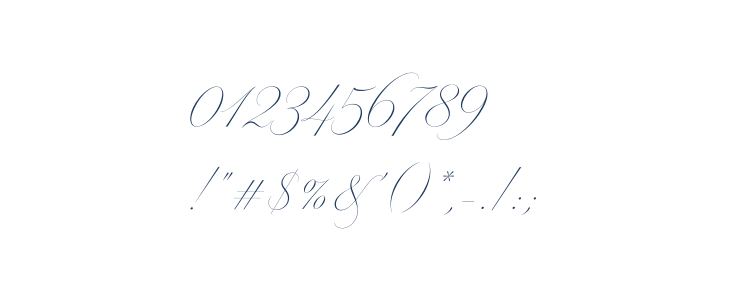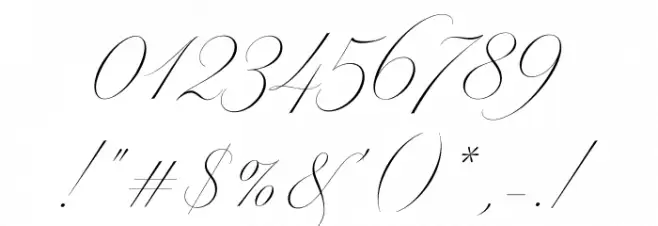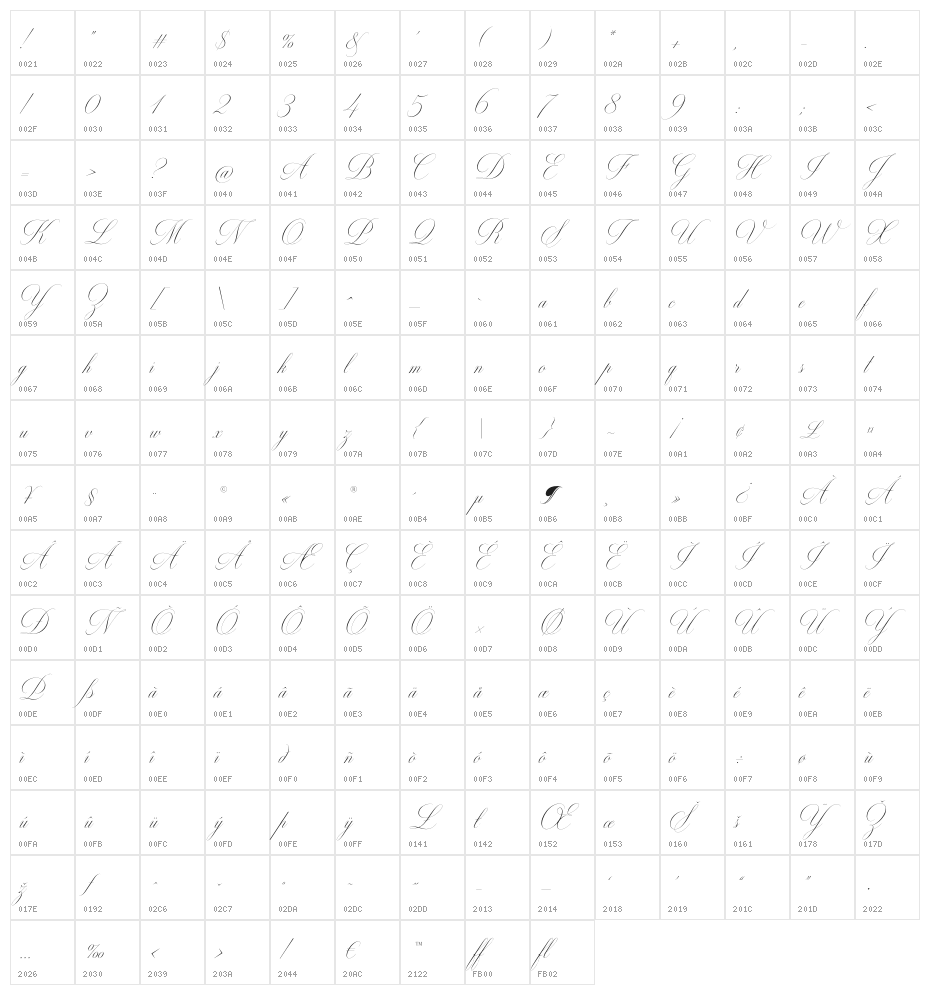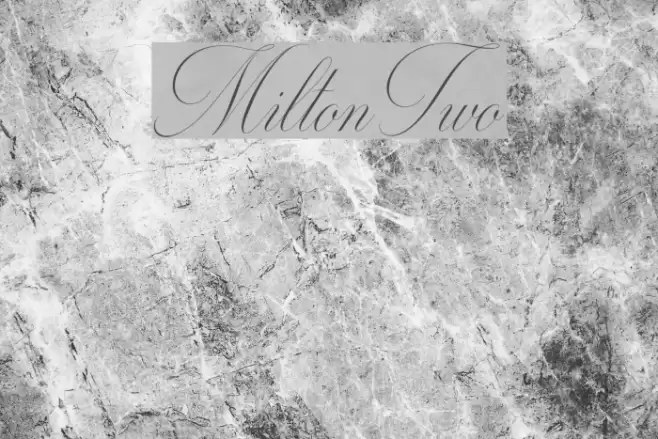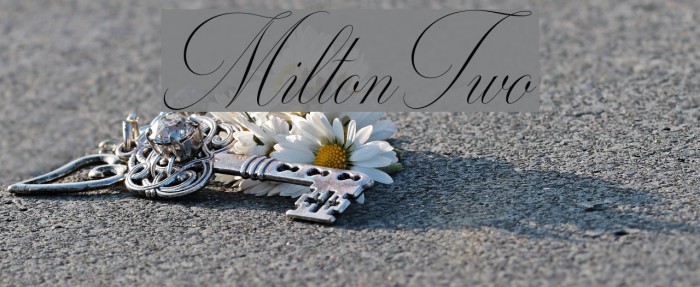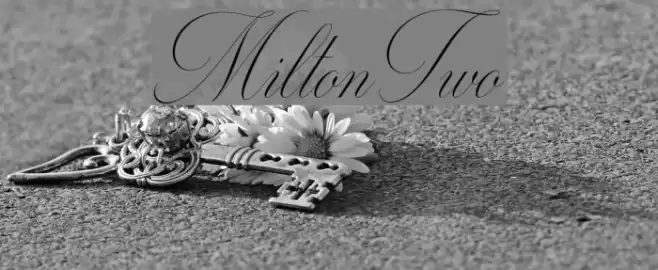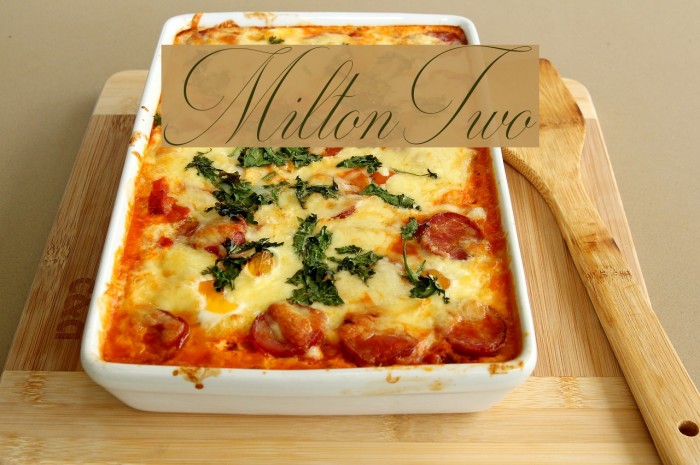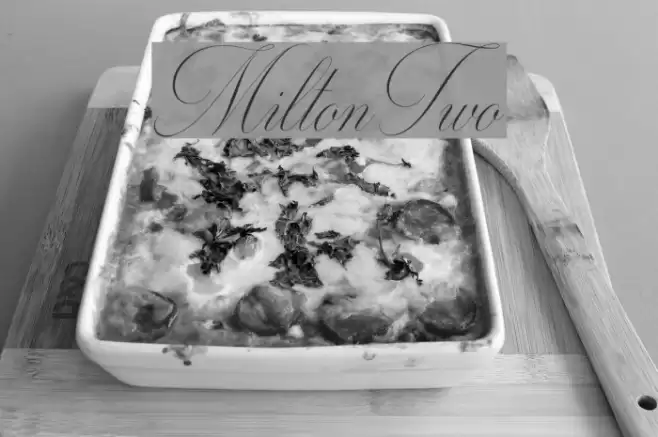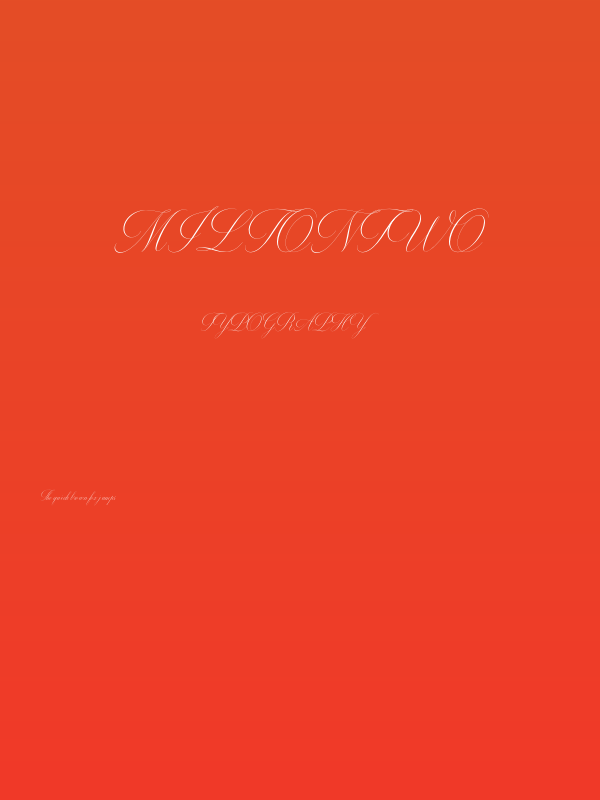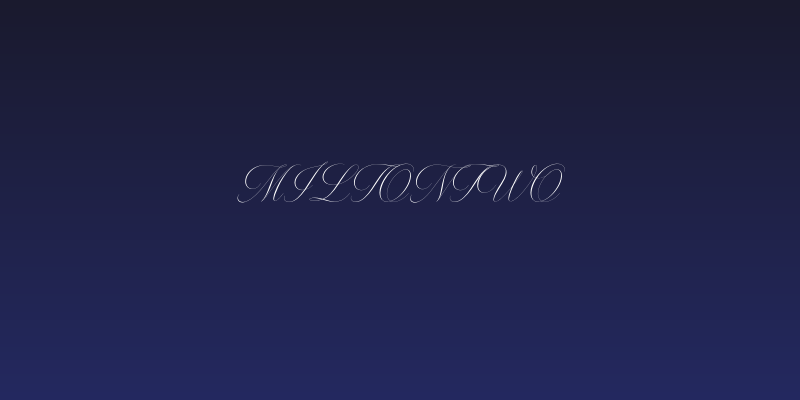
MiltonTwo Font
MiltonTwo Description
This elegant script font features a flowing, cursive style with delicate, thin strokes and high contrast between thick and thin lines. The characters are intricately designed with graceful loops and swashes, giving it a sophisticated and refined appearance. The uppercase letters are particularly ornate, with extended flourishes that add a touch of grandeur. The lowercase letters maintain a consistent flow, enhancing readability while preserving the decorative nature of the font. The numerals and special characters are crafted to match the overall aesthetic, making this font suitable for formal and luxurious designs.
| Proposed Projects | Ideal for wedding invitations, luxury branding, elegant stationery, and high-end product packaging. |